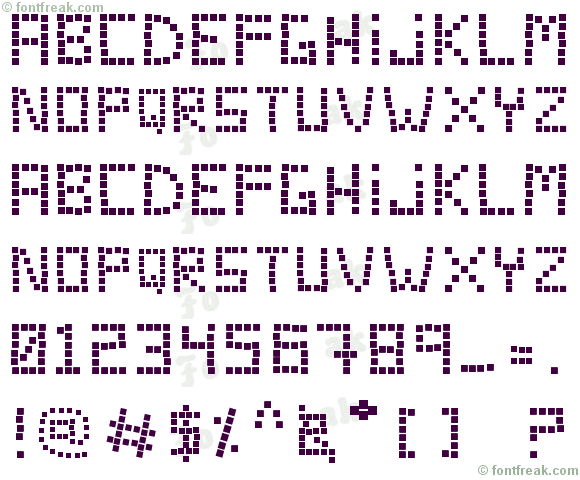
Tecno Chaos
About Tecno Chaos
Tecno Chaos, designed by woodcutter Manero, is a striking display typeface that embraces a unique aesthetic blending techno and chaotic elements. This font is characterized by its distinctive blocky structure, featuring a pixelated appearance that gives it a digital, futuristic vibe. The stroke weight is consistent, but the spacing between characters adds to the visual intrigue, making it suitable for attention-grabbing headlines and creative projects. The design includes playful, irregular patterns that evoke a sense of movement and energy, setting it apart from more traditional typefaces.
The versatility of Tecno Chaos makes it ideal for various uses. It shines in graphic design projects aimed at capturing the viewer's attention, such as music festival posters, tech branding, and promotional materials for modern art exhibitions. Additionally, it can be effectively utilized in video game titles or digital content to create an immersive experience. The font's bold and unconventional style lends itself well to social media graphics, making it a favorite among content creators looking to stand out.
What truly sets the Tecno Chaos font apart is its ability to convey a sense of dynamic energy while maintaining legibility. The unique combination of its pixelated design and bold character forms makes it a powerful choice for projects that aim to break the mold. For those interested, the Tecno Chaos font free download offers a fantastic opportunity to incorporate this distinctive typeface into your creative toolkit.